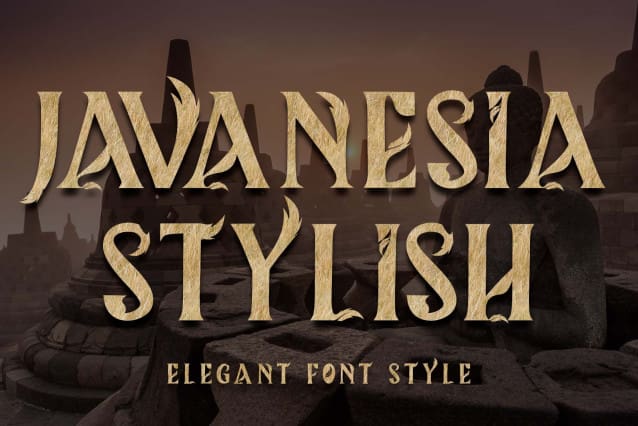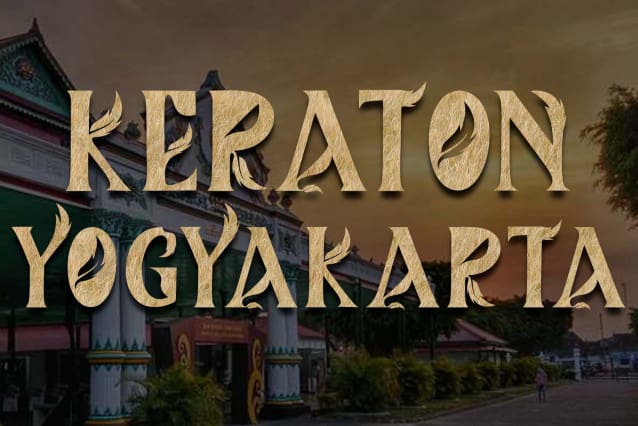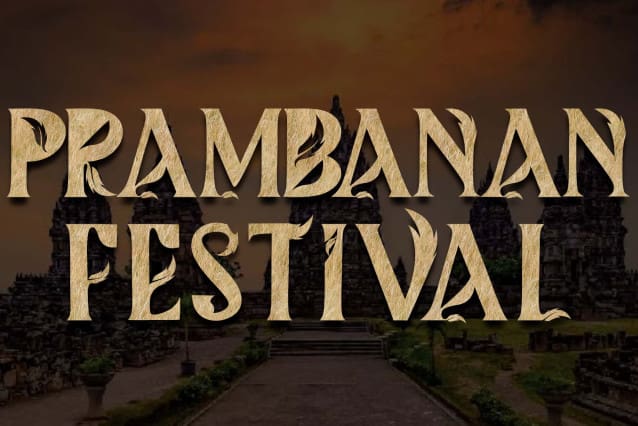
Javanesia Font
Javanesia Font is a very professional and elegant blackletter font. This font comes with capital letters, lowercase letters, numbers, punctuation and multilingual support. It is perfect for posters, banners, branding, business branding, holidays, printing, movies, festivals, and more.